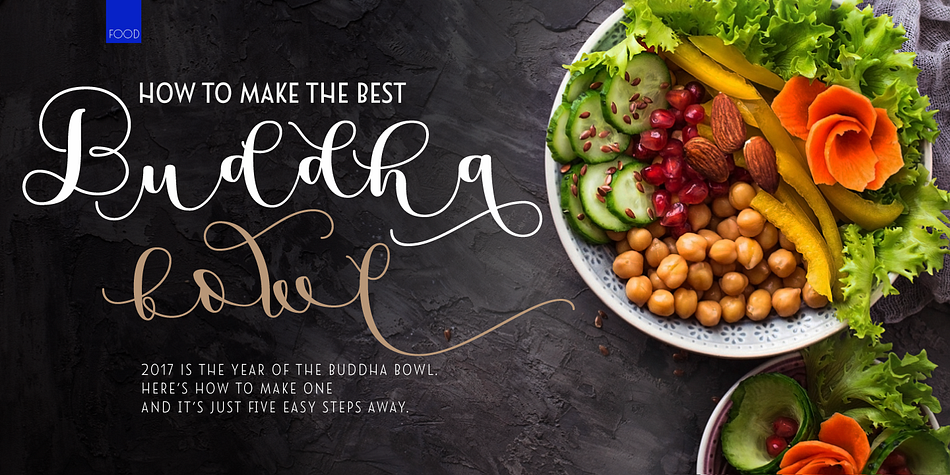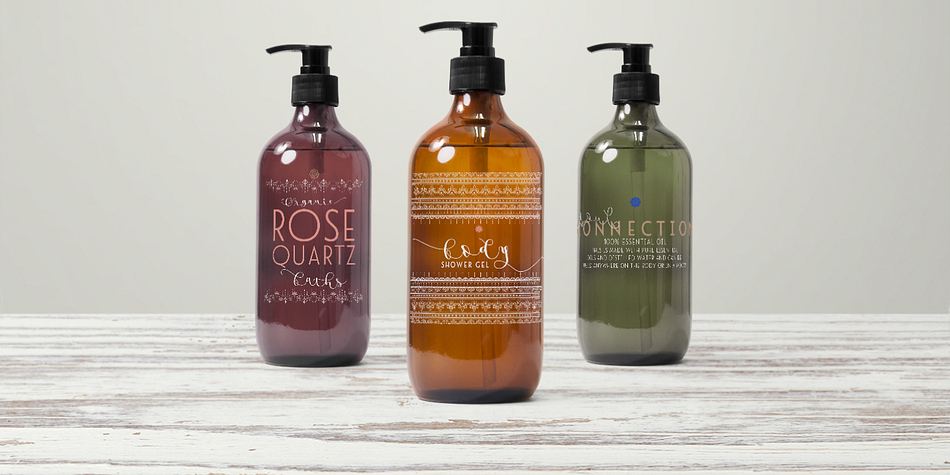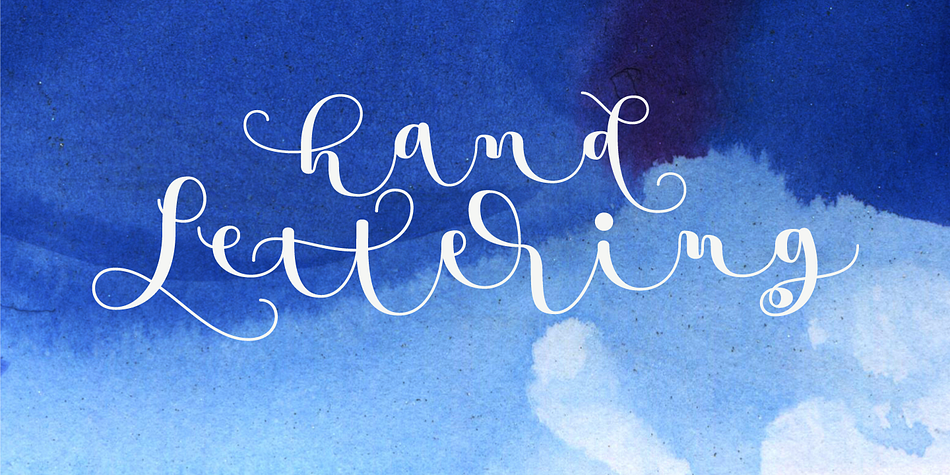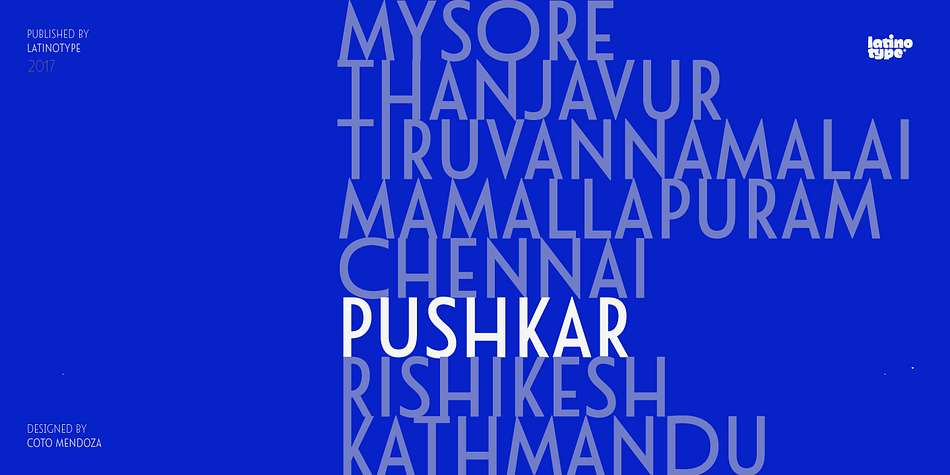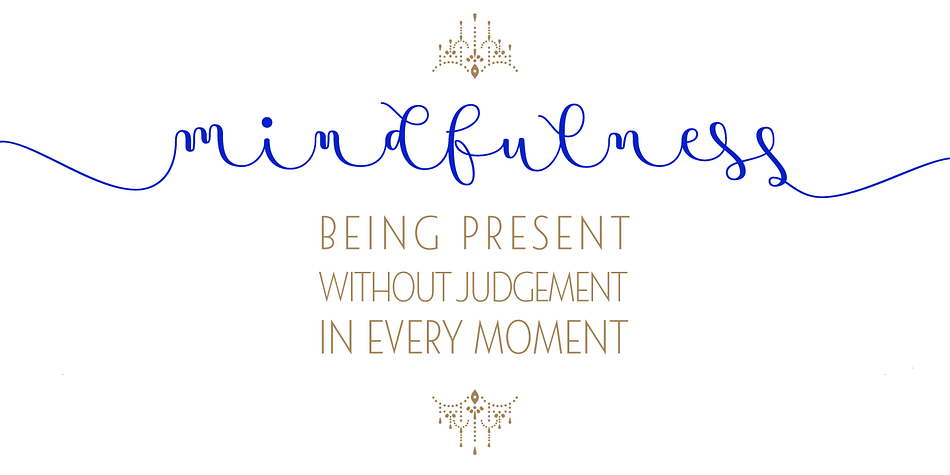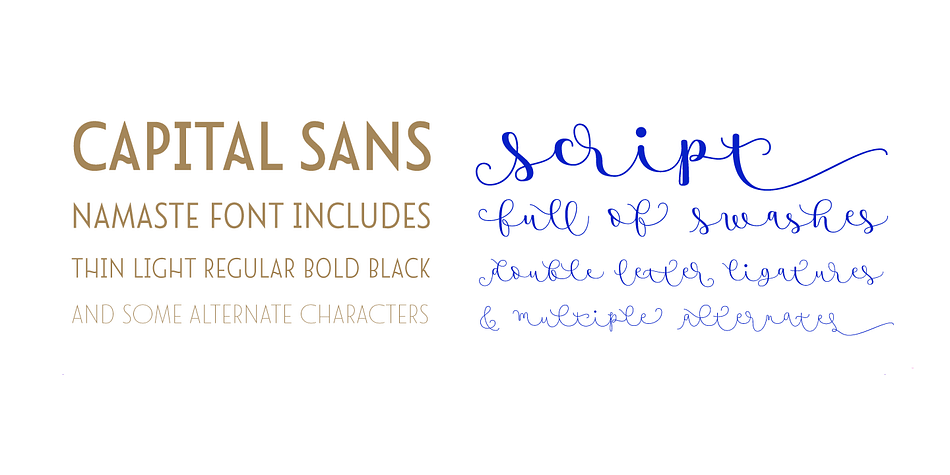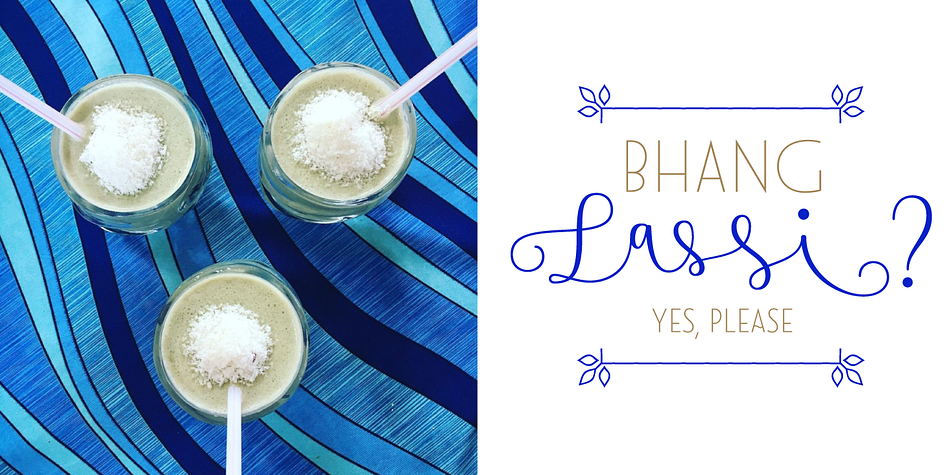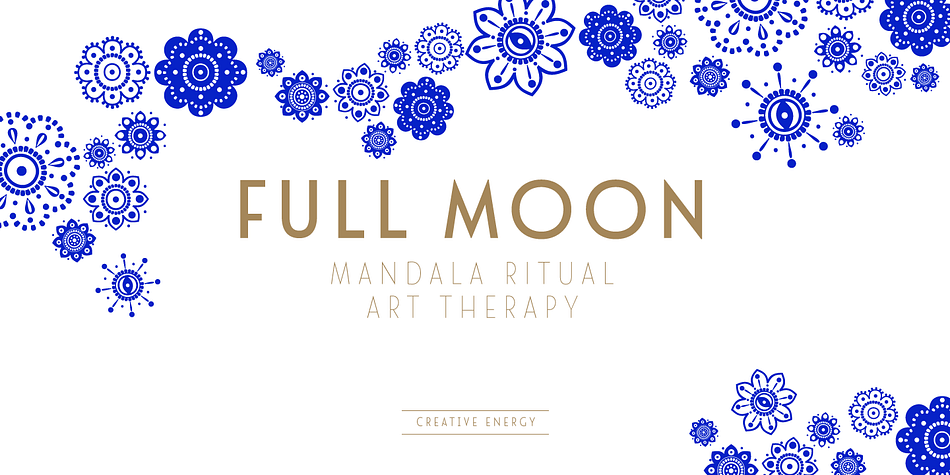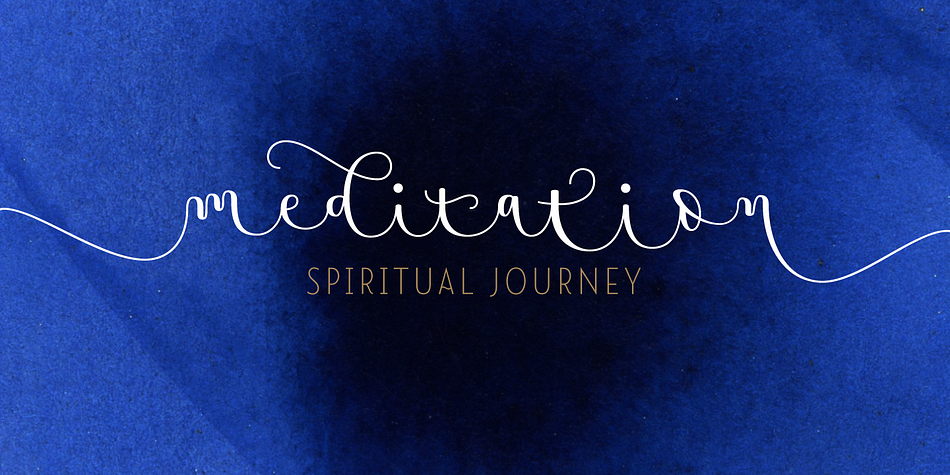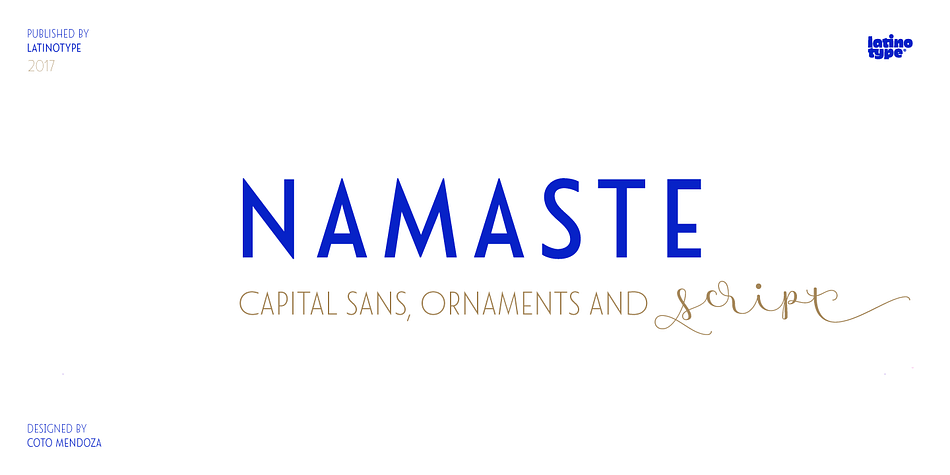
Designed by Coto Mendoza, Namaste is a multiple classification font family. This typeface has twenty-one styles and was published by Latinotype.
With open palms, place your hands together at the center of your chest, close your eyes and bow the head slightly. Namaste! Welcome to a beautiful spiritual journey.
Namaste is a font collection, designed by Coto Mendoza, consisting of two variants: a capital sans and a script font (based on watercolor calligraphy strokes). Each variant comes in 5 weights—Thin, Light, Regular, Bold and Black—and 2 versions: Essential and Pro. The script font, in its Pro version, provides a wide range of OpenType features such as swashes, alternates, ligatures and different stylistic sets. The Namaste family also includes a set of ornaments inspired by Hindu and Buddhist symbols—that Coto Mendoza saw virtually everywhere on her trip to India—like Mandalas and Yantras, and others found in textiles and monuments.
Namaste is the perfect choice for wellness, healing and therapy oriented products. Its smooth shape and soft curves allow the user to create beautiful designs for essential oils, bath salts, quartz crystals, mindfoodness, candles, incense and aromatherapy products packaging. The font is well-suited for publishing design (short text); self-help and healing handbooks; tarot and divination cards; and women’s empowerment and spirituality publications. Namaste is an ideal typeface for yoga (and other body disciplines) center branding; holistic centers; and group meditation, womb blessing and circle of women invitations.
Namaste is a beautiful journey full of love and inspiration. Namaste: a spiritual journey.